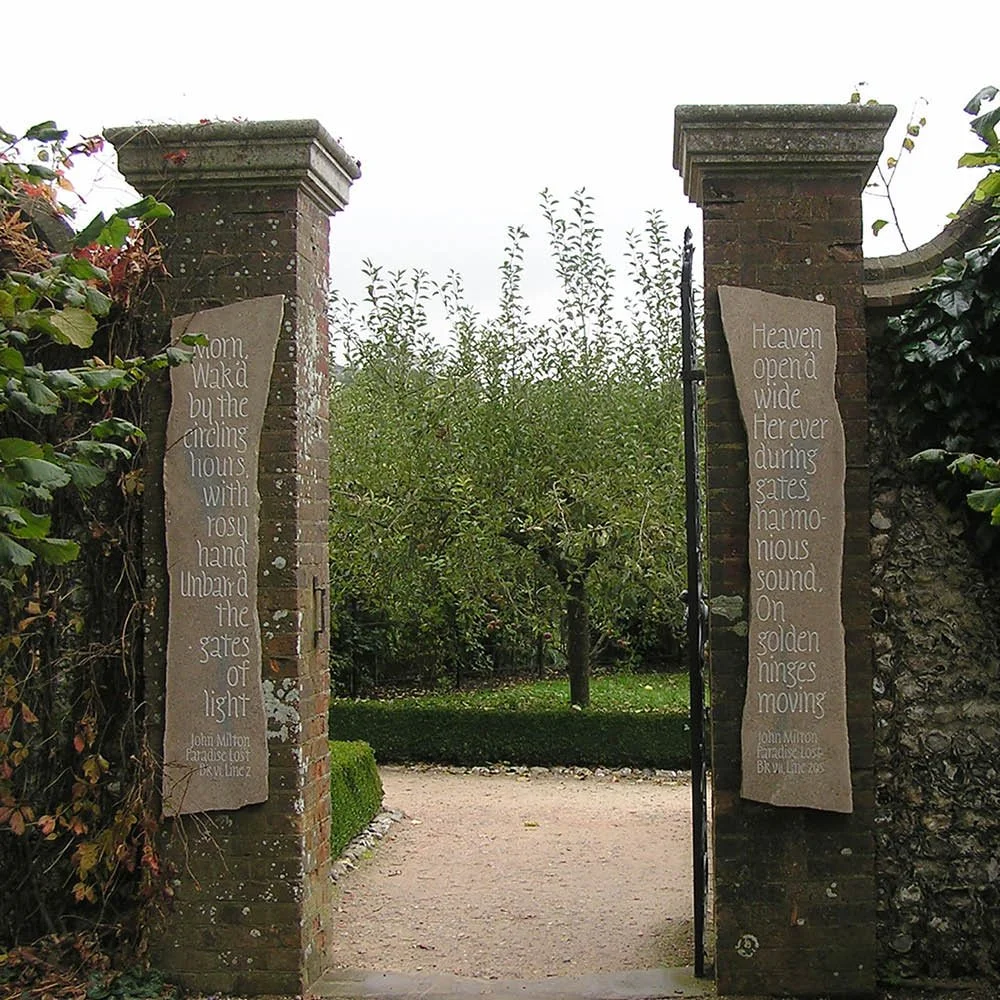
Gates of Heaven by Incisive Letterwork (Annet Stirling)
Purbeck Vyebit
‘We found two unusually tall, thin pieces of stone in a quarry near Purbeck. They were slices off the same block, and their symmetry suggested gates to us – the gates of heaven. Finding the two quotes from Milton’s Paradise Lost was absolute luck. Our inspiration for the lettering came from ideas of forged iron; it’s designed to be simple, monoline, slightly fabricated.’